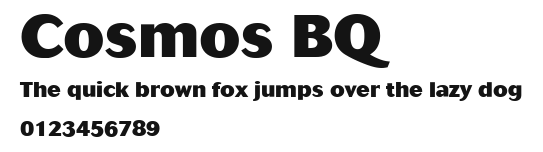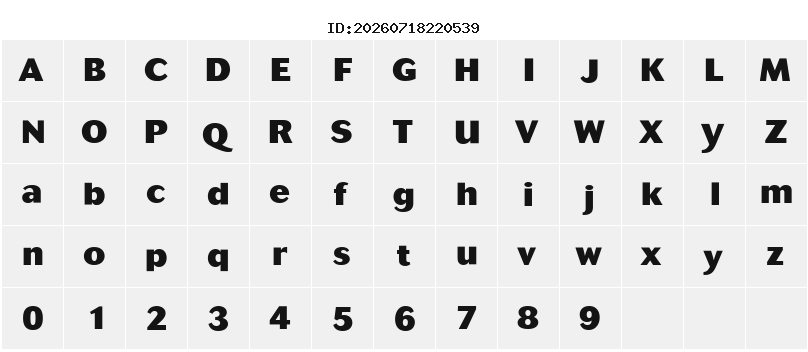
Cosmos BQ Preview
• Font Name: Cosmos BQ
• Full Font Name: Cosmos (R) Extra Bold
• PostScript Name: CosmosBQ-ExtraBold
About Cosmos BQ.ttf
Cosmos BQ.ttf is a modern, elegant sans-serif font designed for ultimate readability and visual harmony. Perfect for branding, headlines, web design, and print materials.